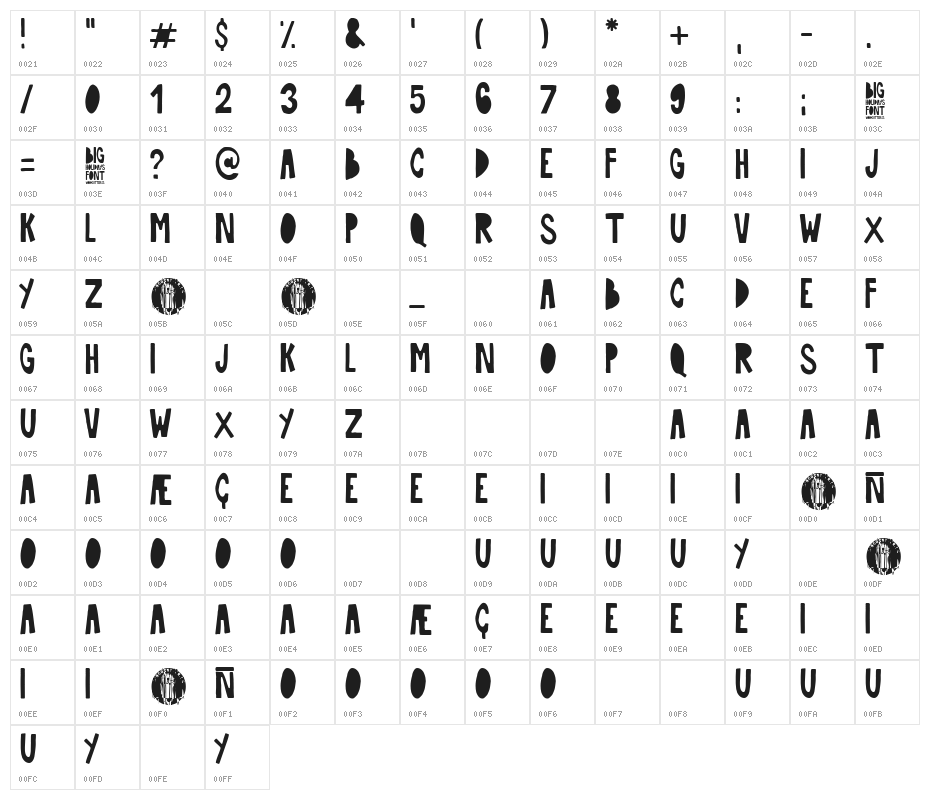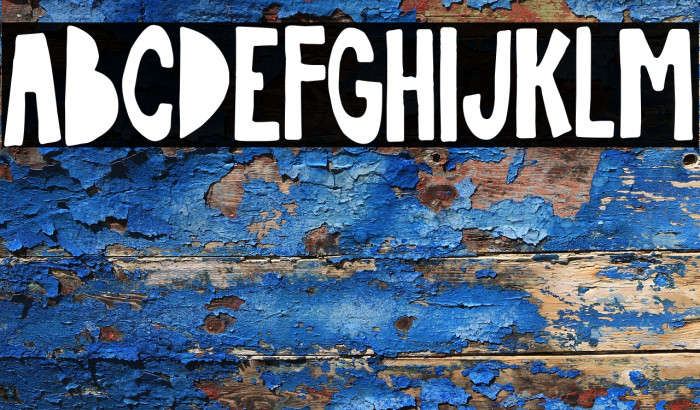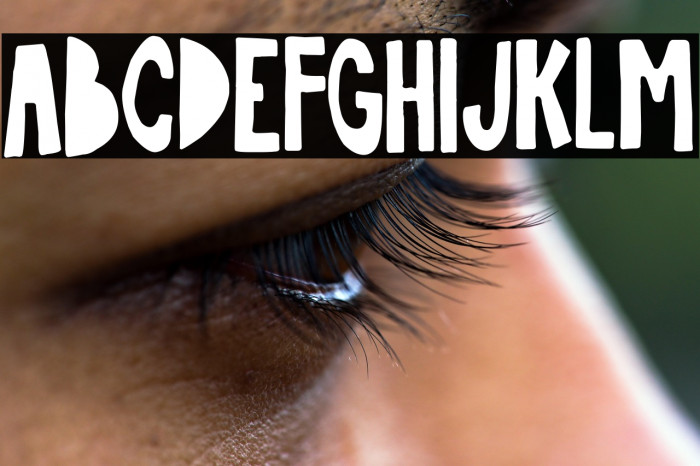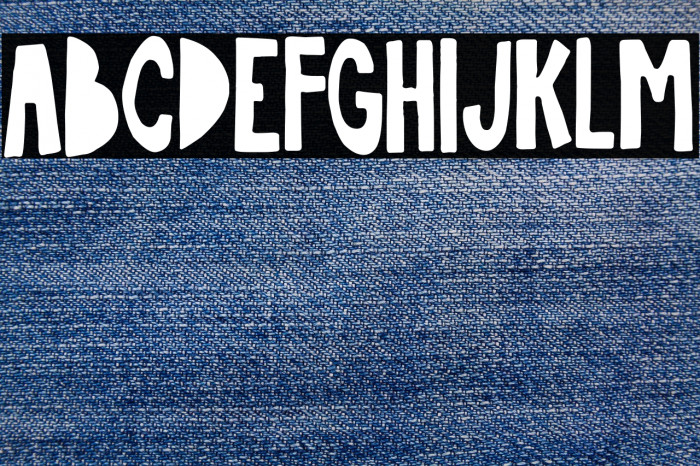
Big Holidays Font
Big Holidays Description
This font features a bold and playful design with a hand-drawn aesthetic. The characters are thick and rounded, giving them a friendly and approachable feel. The uppercase letters are slightly irregular, adding to the whimsical charm of the font. The numbers and special characters maintain the same playful style, making it suitable for creative and informal projects. The overall look is reminiscent of a fun, festive atmosphere, perfect for capturing attention in a lively way.
Overall StylePlayful, Festive
Use CaseHeadlines, Logos, Invitations
Proposed ProjectsIdeal for holiday cards, children's books, party invitations, and playful branding.